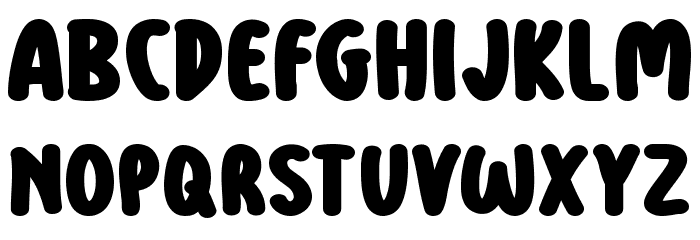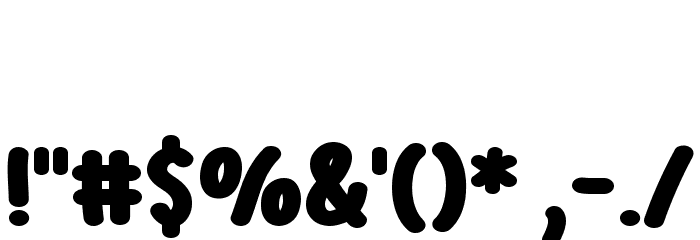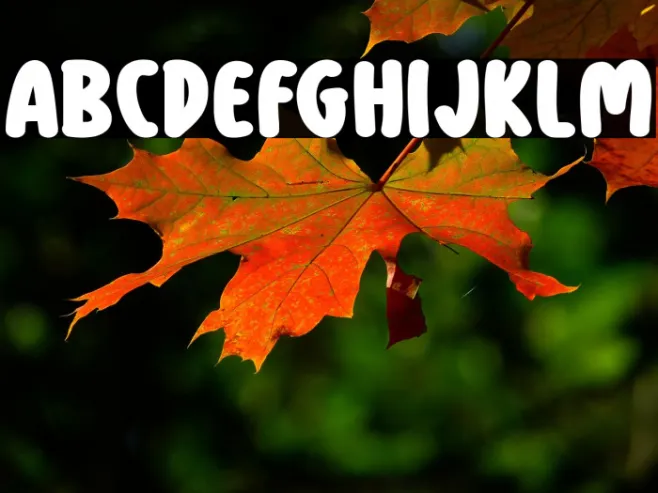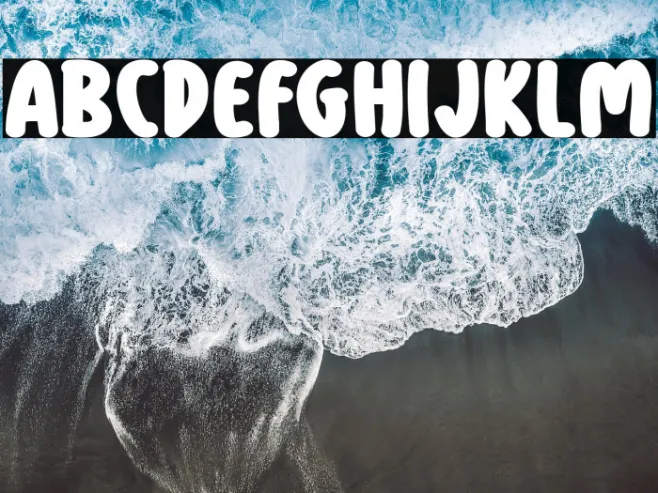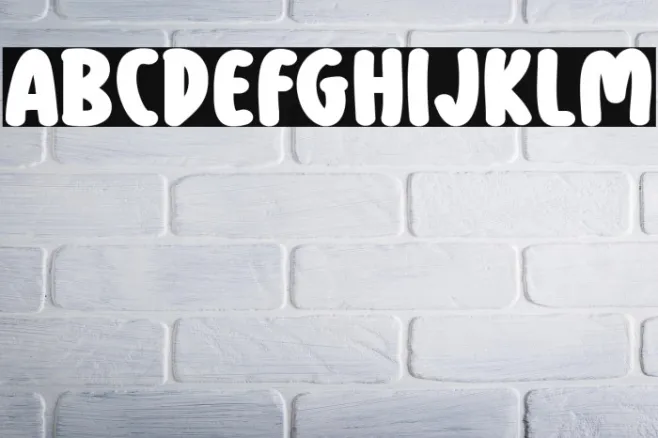
Food Zone Font
This font features bold, rounded characters with a playful and friendly appearance. The letters are thick and uniform, giving a sense of stability and approachability. The rounded edges and consistent stroke width contribute to its casual and informal style. The font is highly legible, making it suitable for various display purposes. Its boldness ensures that it stands out, while the rounded forms add a touch of warmth and friendliness. The characters are evenly spaced, providing a balanced and harmonious look. This font is ideal for projects that require a fun and engaging visual impact.
A bold, rounded font with a playful and friendly style.
- Font: Food Zone
- Proposed Projects: Ideal for children's books, playful branding, food packaging, and casual event invitations.
- Overall Style: Playful